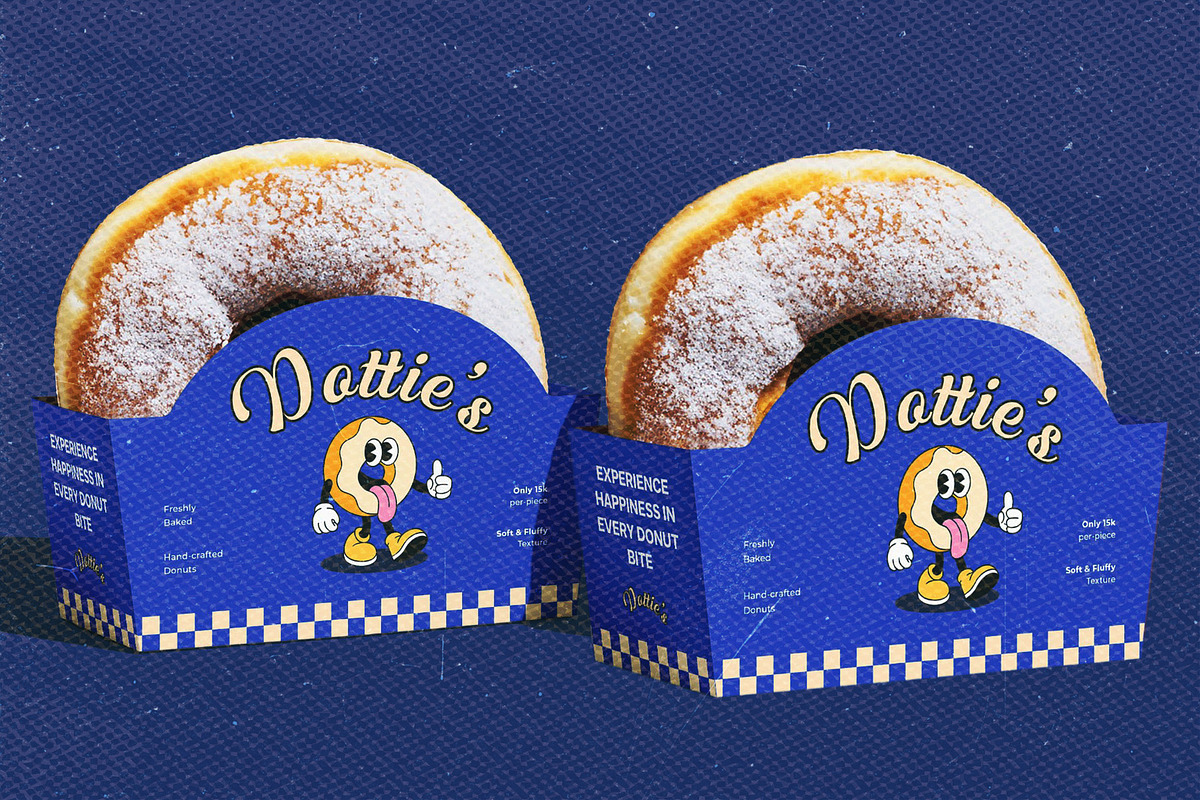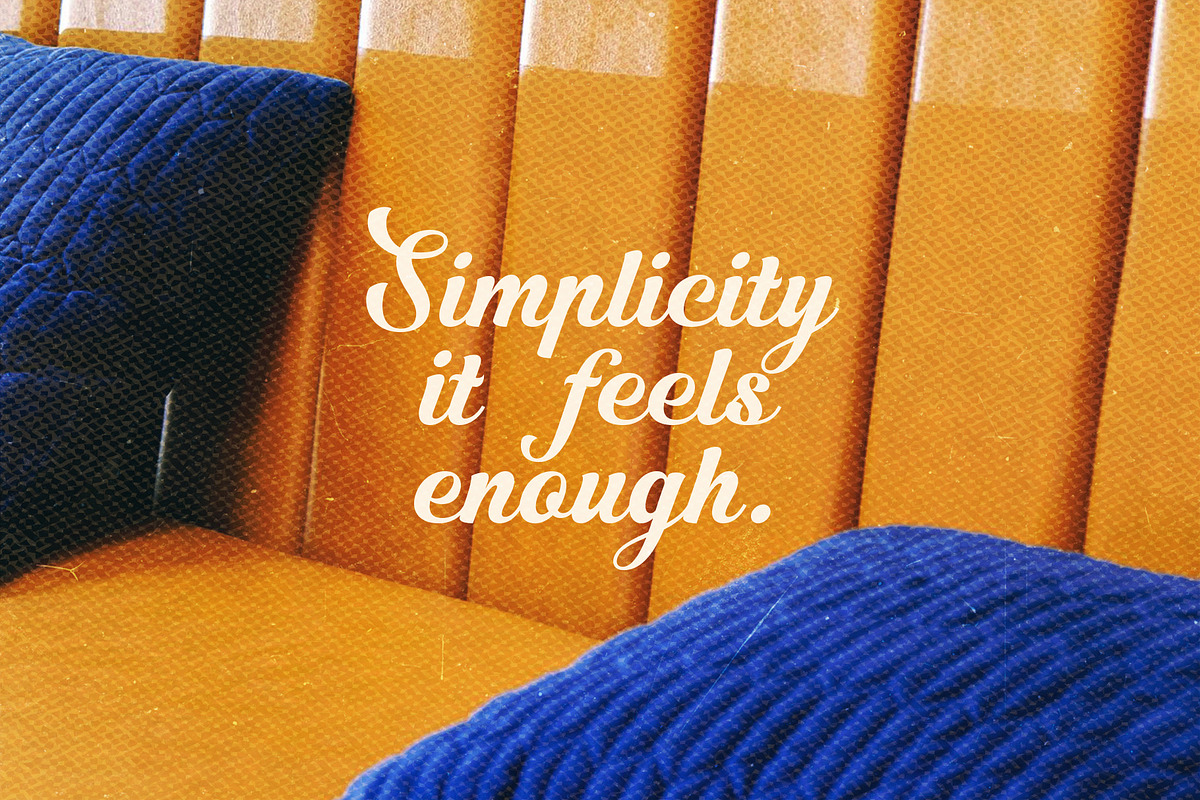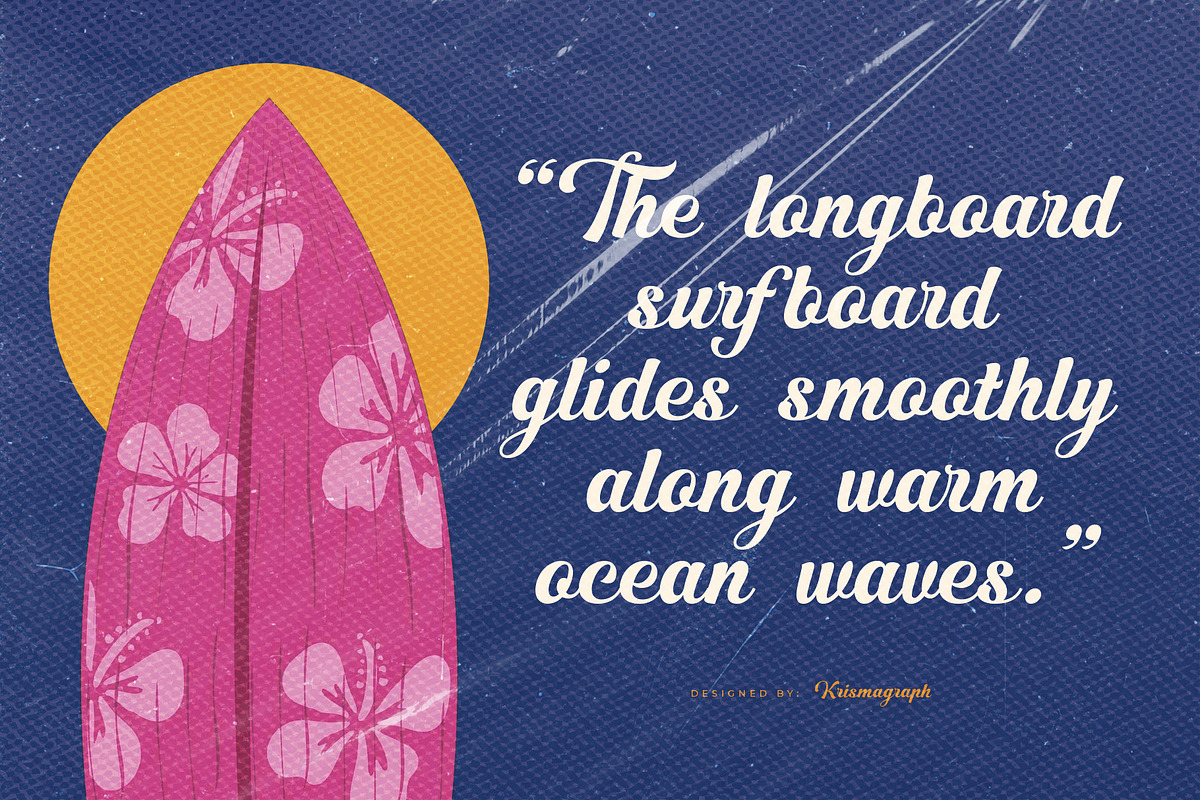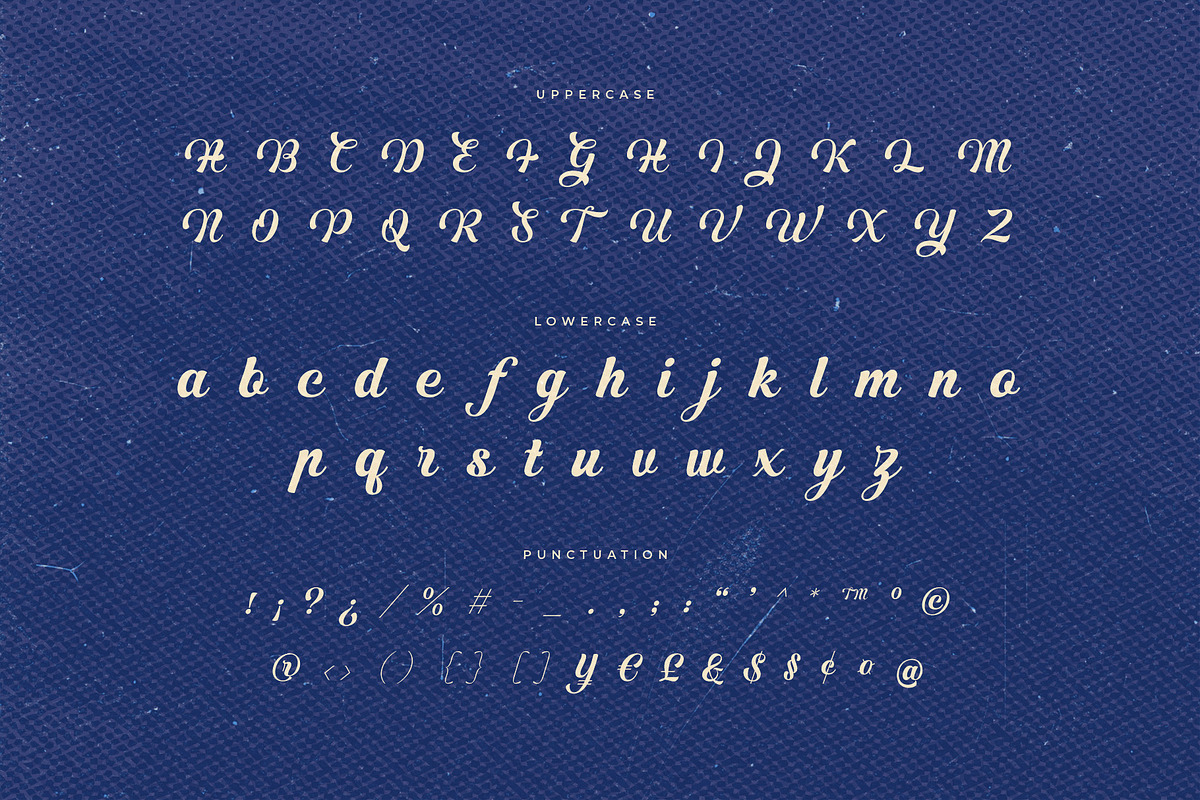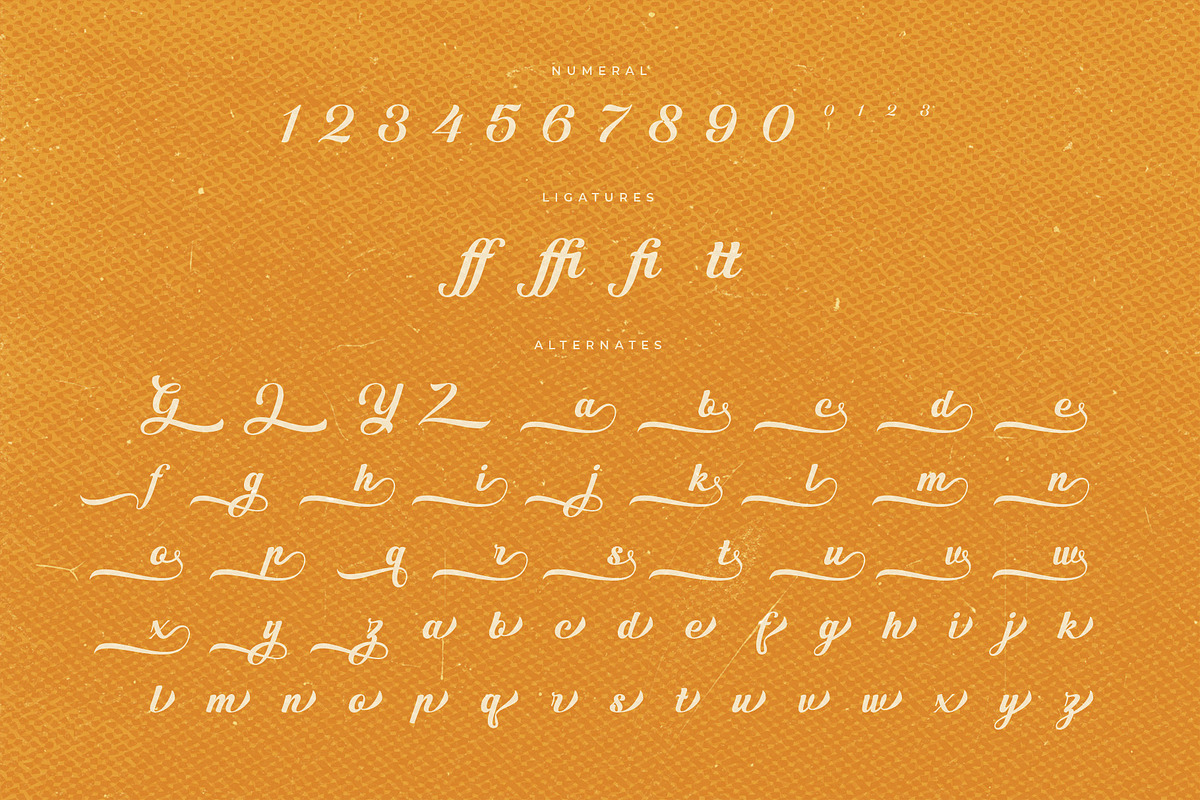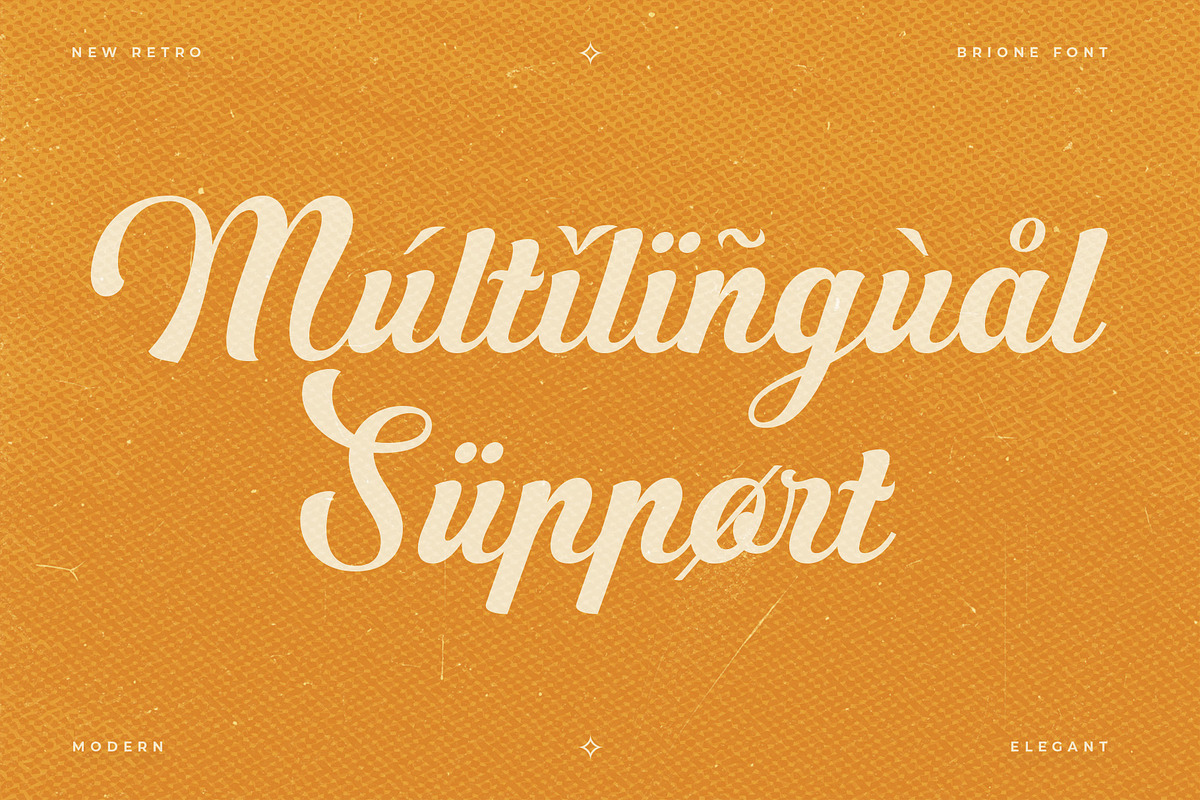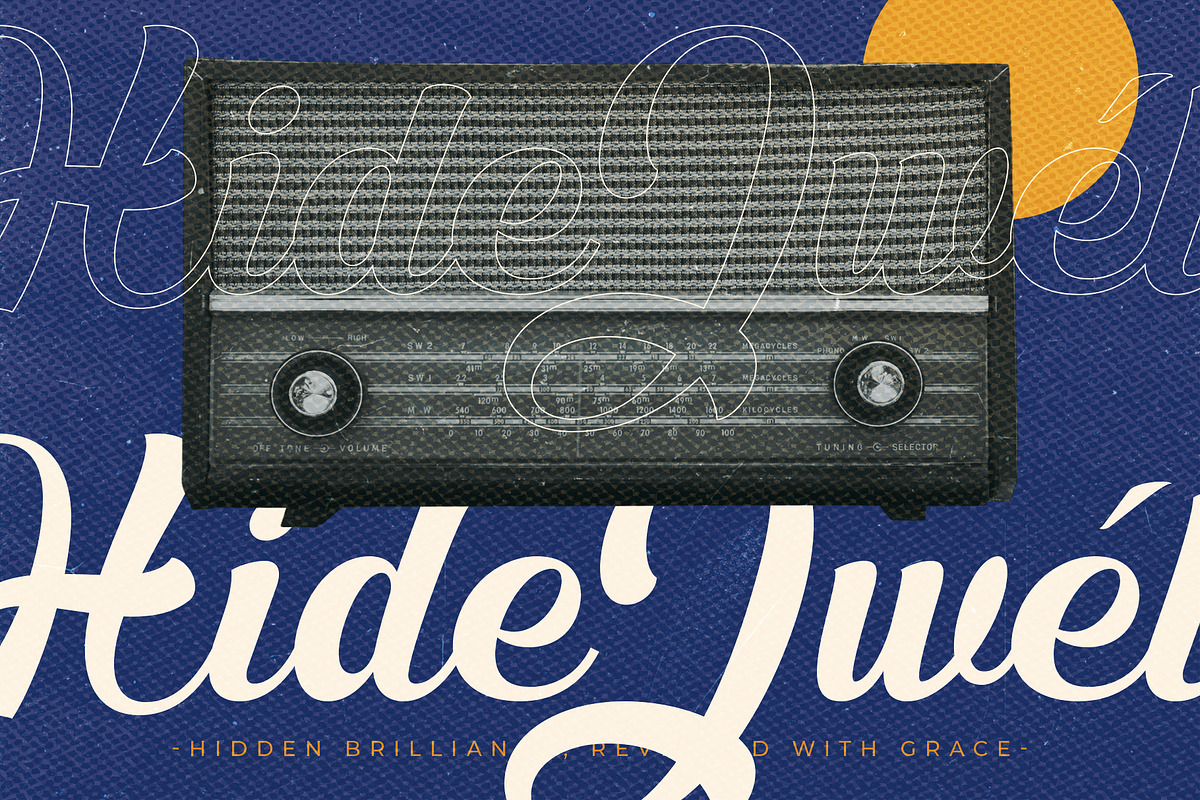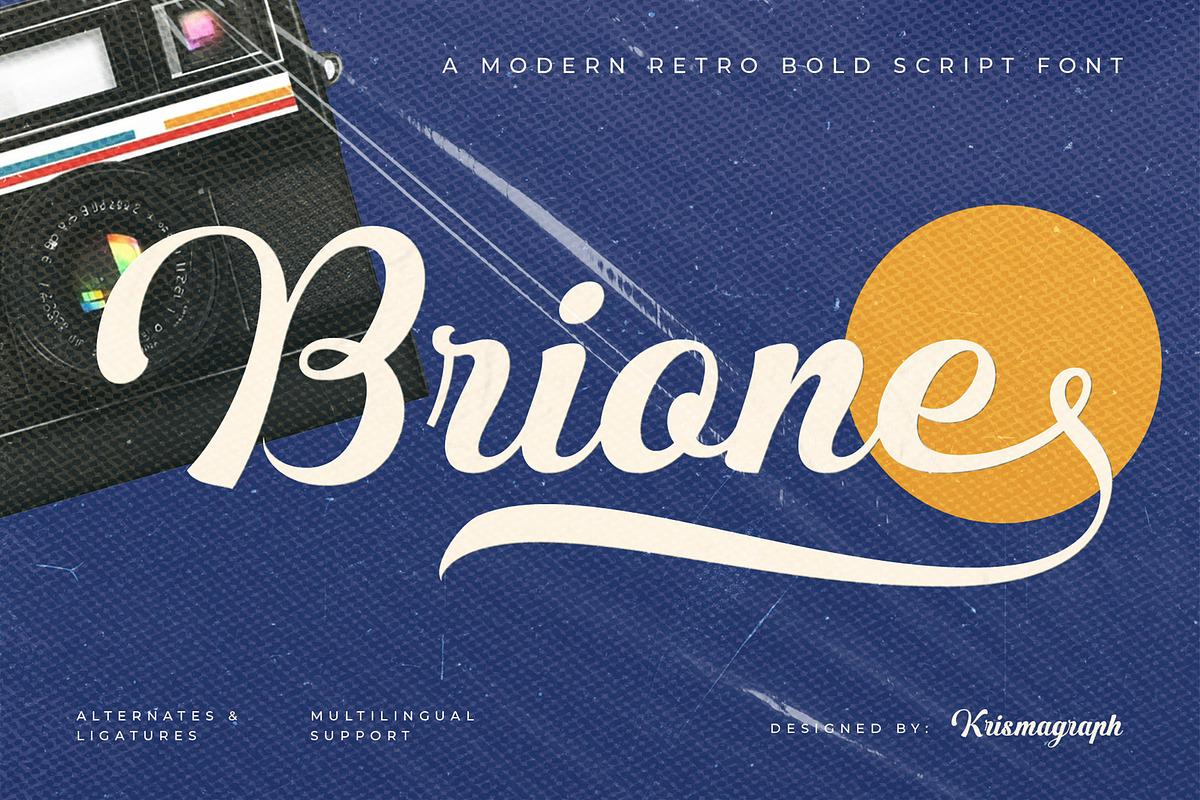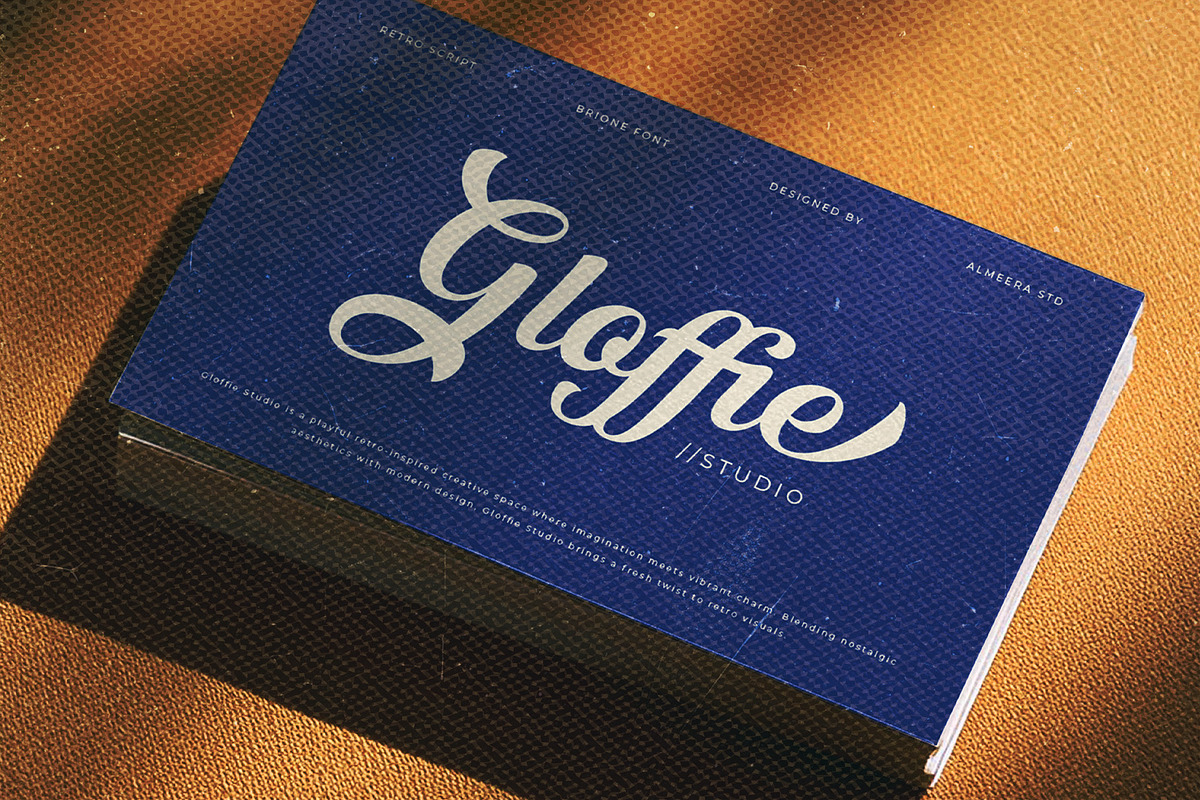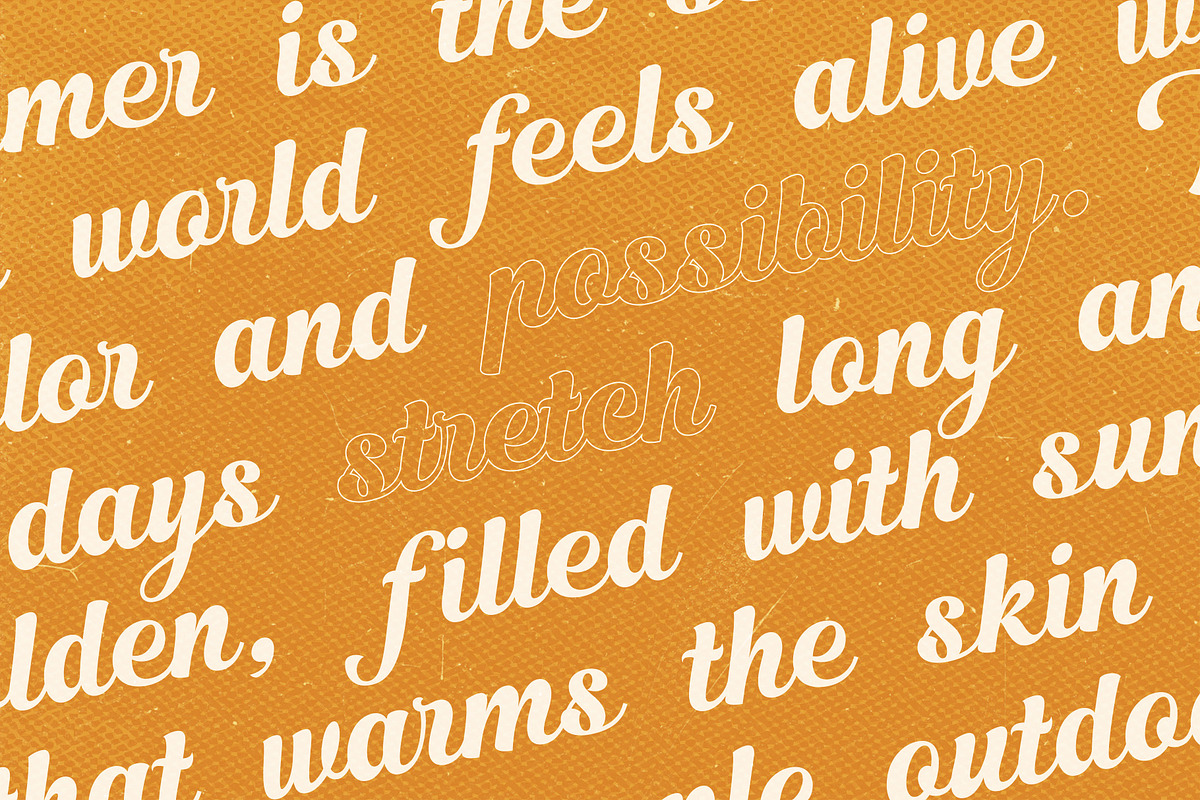
Brione — Retro Bold Script
Brione is a etro bold script font inspired by classic signage and vintage lettering with a contemporary edge. Its thick strokes, smooth curves, and confident flow give this typeface a strong visual presence while maintaining readability and balance. Brione is ideal for logos, headlines, posters, packaging, and branding projects that need character, warmth, and bold personality.
Equipped with alternates & ligatures and multilingual support, Brione allows designers to create expressive and dynamic typographic compositions with a nostalgic yet modern feel.
- Numbers, fractions
- Punctuation and symbols